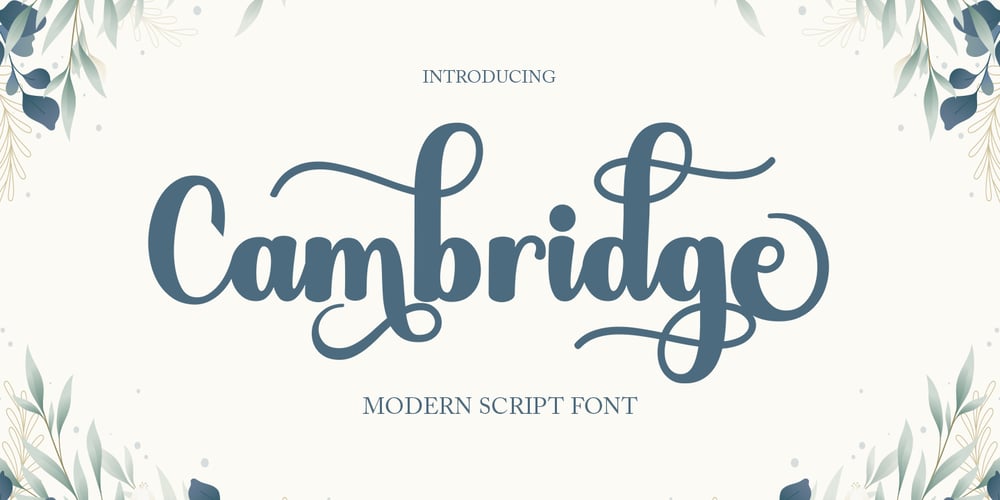
Cambridge
Cambridge font
Cambridge Font Family was designed by Has Rizal and published by Hrz Studio. Cambridge contains 1 styles and family package options. Cambridge is a soft and sweet calligraphic typeface, with characters dancing along the baseline. It has a casual and elegant touch. Can be used for various purposes such as logos, wedding invitations, headings, t-shirts, letterheads, signage, labels, news, posters, badges etc.